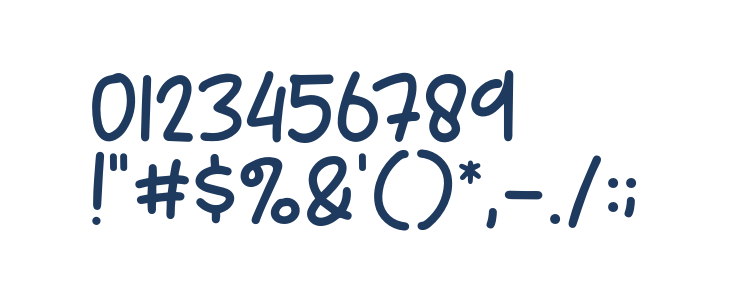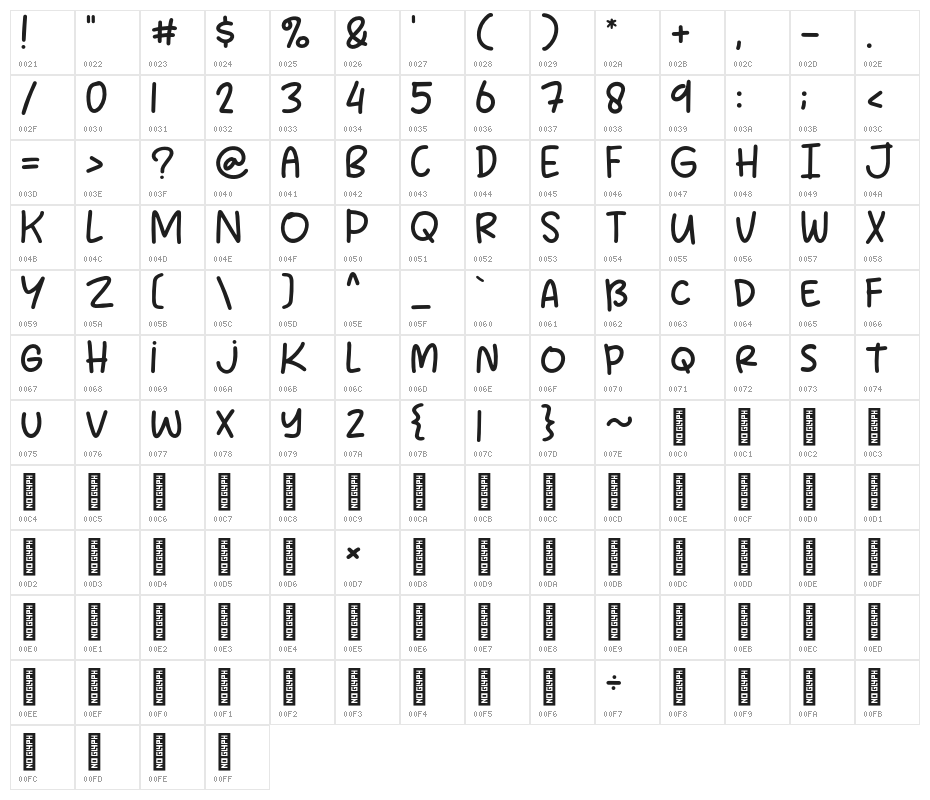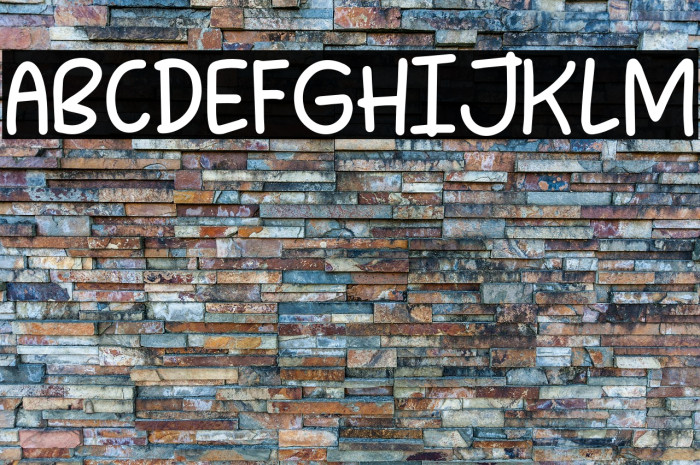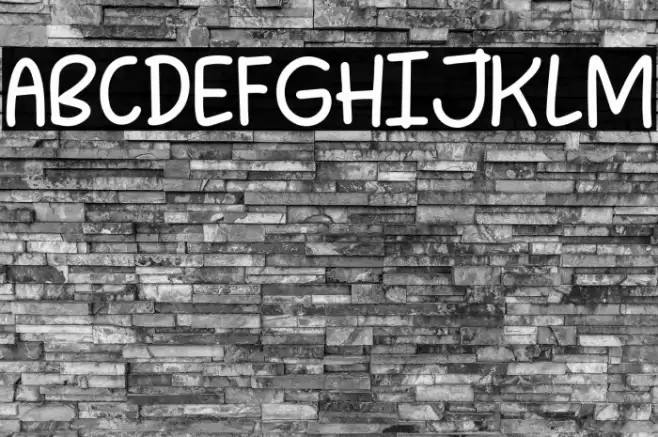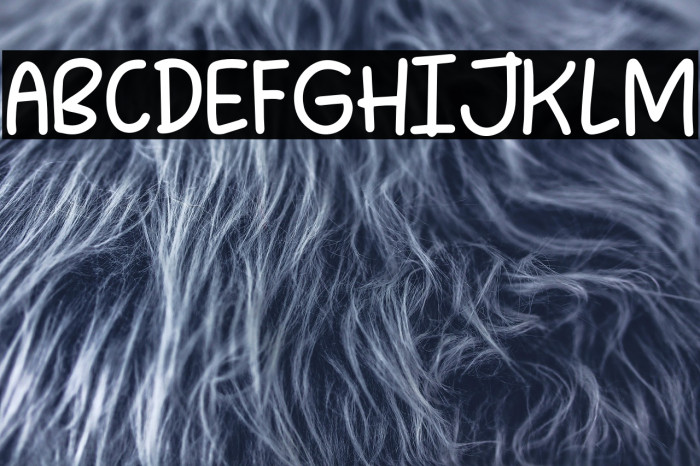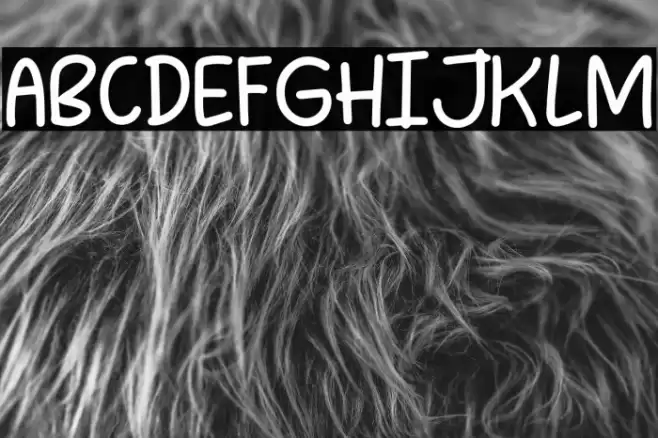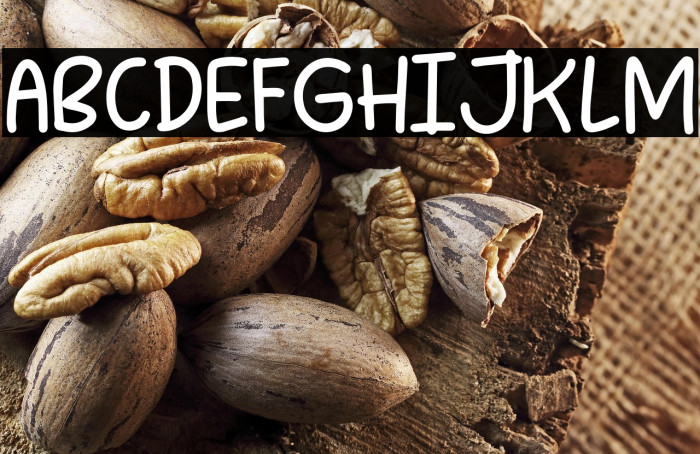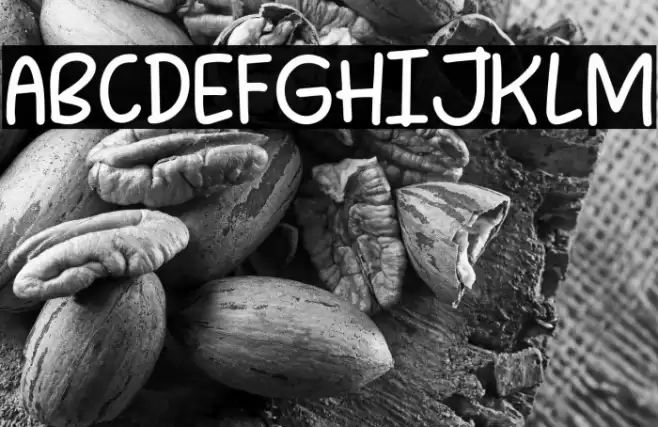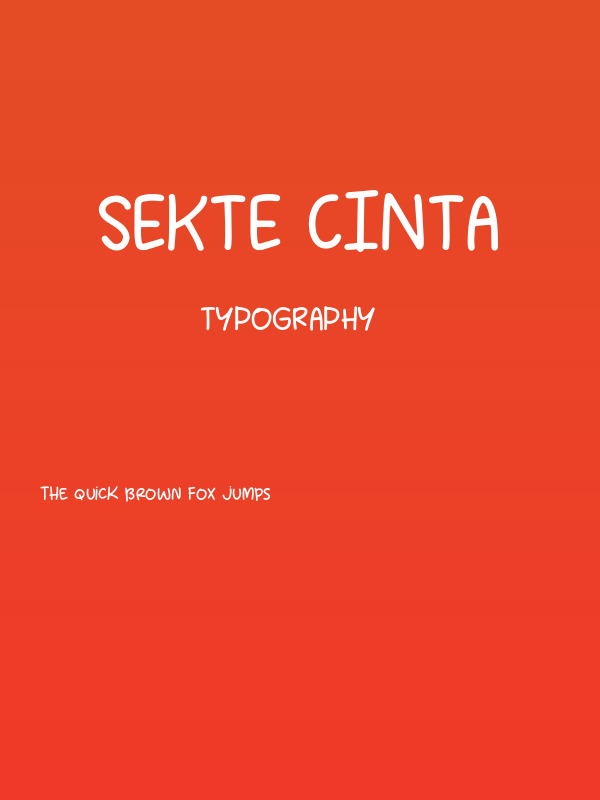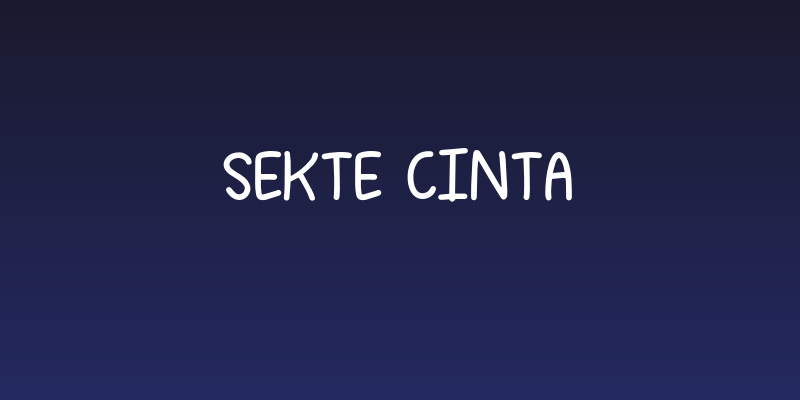
Sekte Cinta Font
Sekte Cinta Description
This playful and bold handwritten font features rounded edges and a casual, friendly appearance. The characters are slightly irregular, adding a personal touch that mimics natural handwriting. The uppercase and lowercase letters maintain a consistent style, with a smooth flow that enhances readability. Numbers and special characters are crafted with the same playful essence, making the font versatile for various creative projects. Its informal style is perfect for designs that require a human touch, such as greeting cards, children's books, or playful branding materials.
| Proposed Projects | Ideal for greeting cards, children's books, playful branding, and informal invitations. |